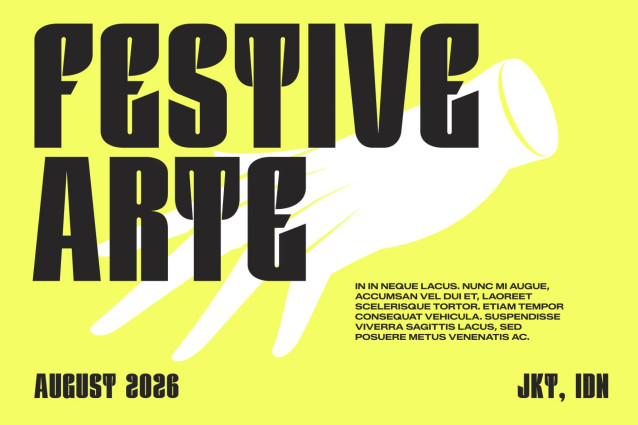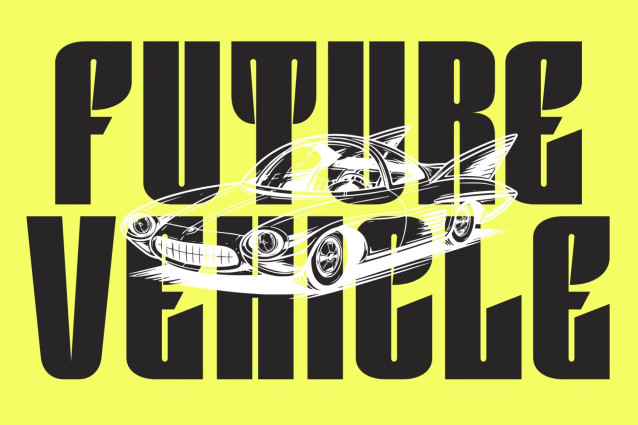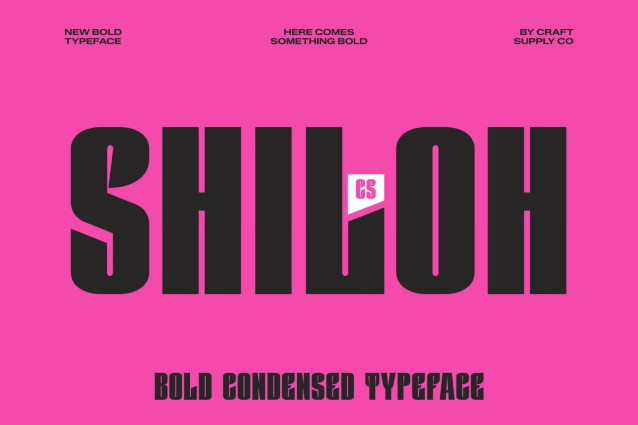
CS Shiloh – Condensed Font
CS Shiloh – Modern Condensed Display Font: Where Industrial Strength Meets Contemporary Precision
Bold Condensed Forms with Commanding Presence
This is a modern condensed display font designed to deliver maximum impact through its bold proportions and space-efficient structure. Its tall, compact letterforms create a strong visual presence, allowing headlines and titles to stand out with clarity and confidence. Built for high-impact display use, the font combines modern aesthetics with powerful readability.
Industrial-Inspired Design with Strong Personality
This font features sturdy construction and a confident attitude that communicates strength, reliability, and modern functionality. Its clean lines and robust structure create a bold typographic voice, making it ideal for projects that require a commanding and professional appearance.